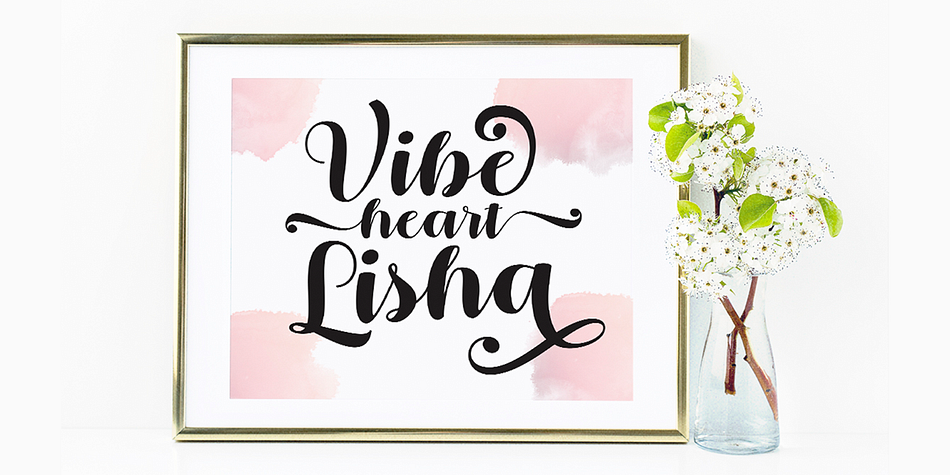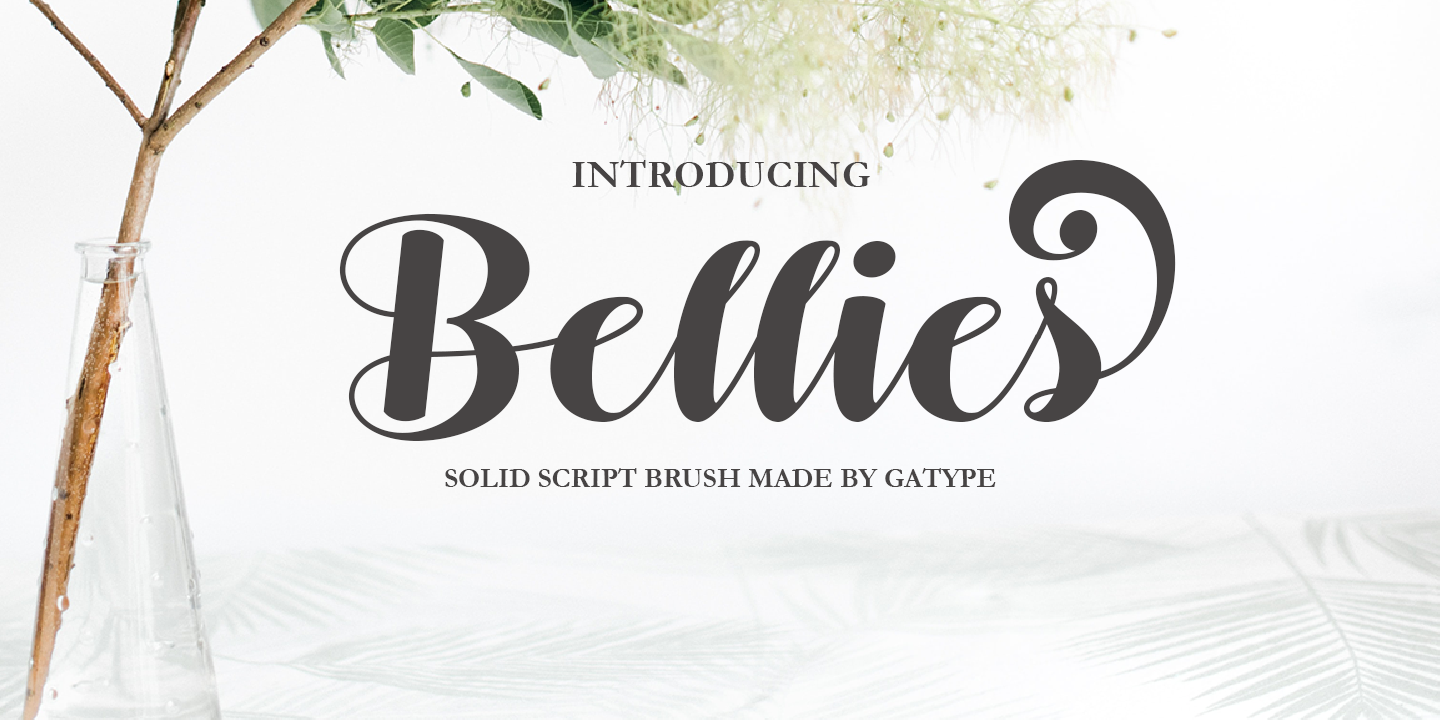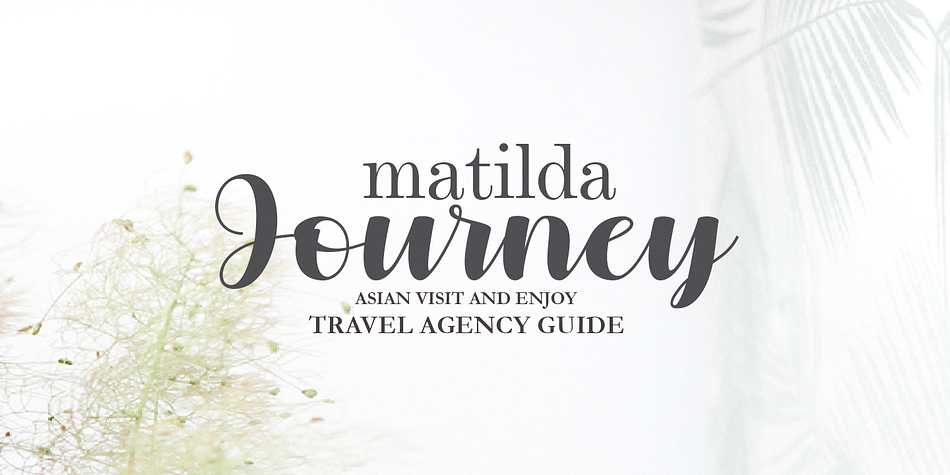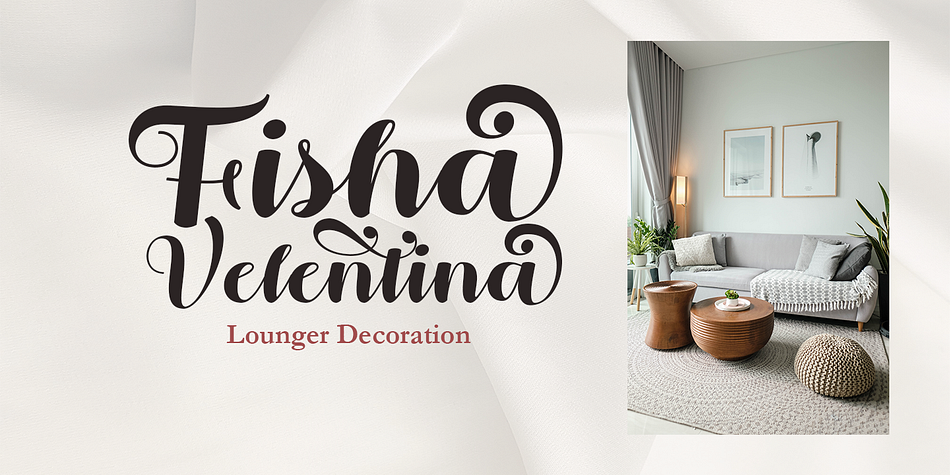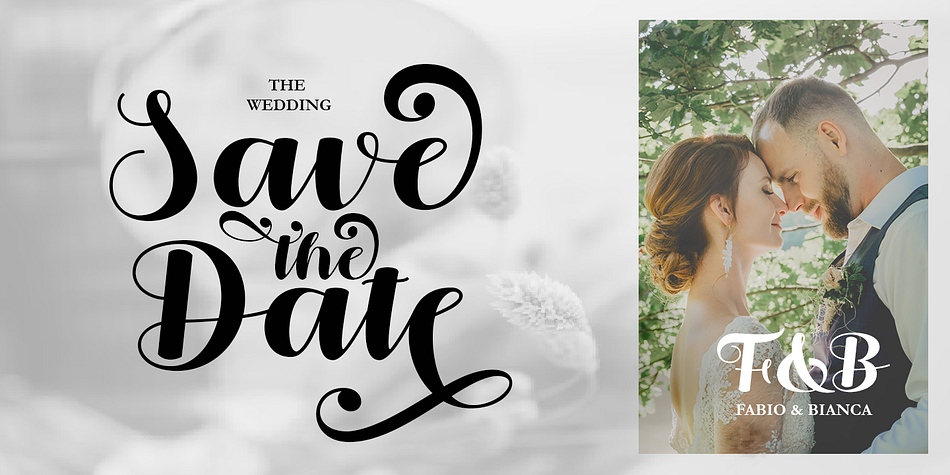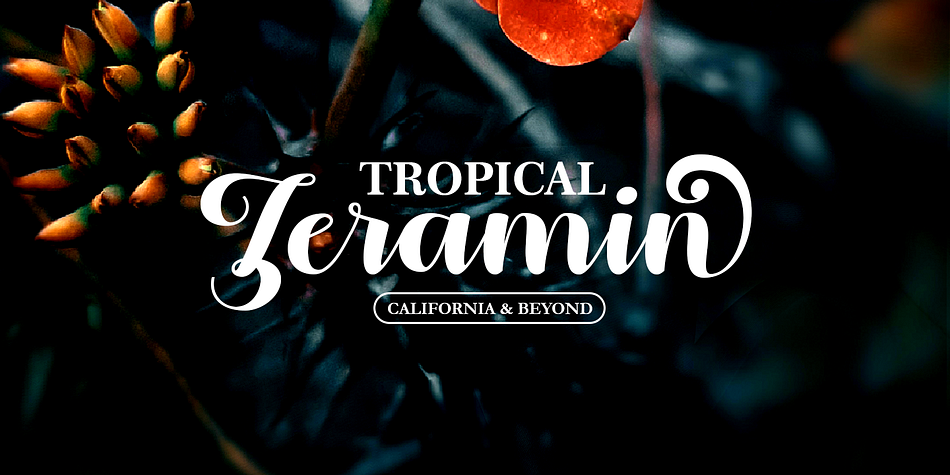
Bellies
Bellies is a modern calligraphy font family published by Gatype.
Bellies is a modern calligraphic font. Beautiful bellies for logotypes, website headers, fashion designs, wedding card designs and more. Bellies comes with an elegant style, Bellies It contains a complete set of lowercase & uppercase letters, various kinds of punctuation, numbers and multilingual support.